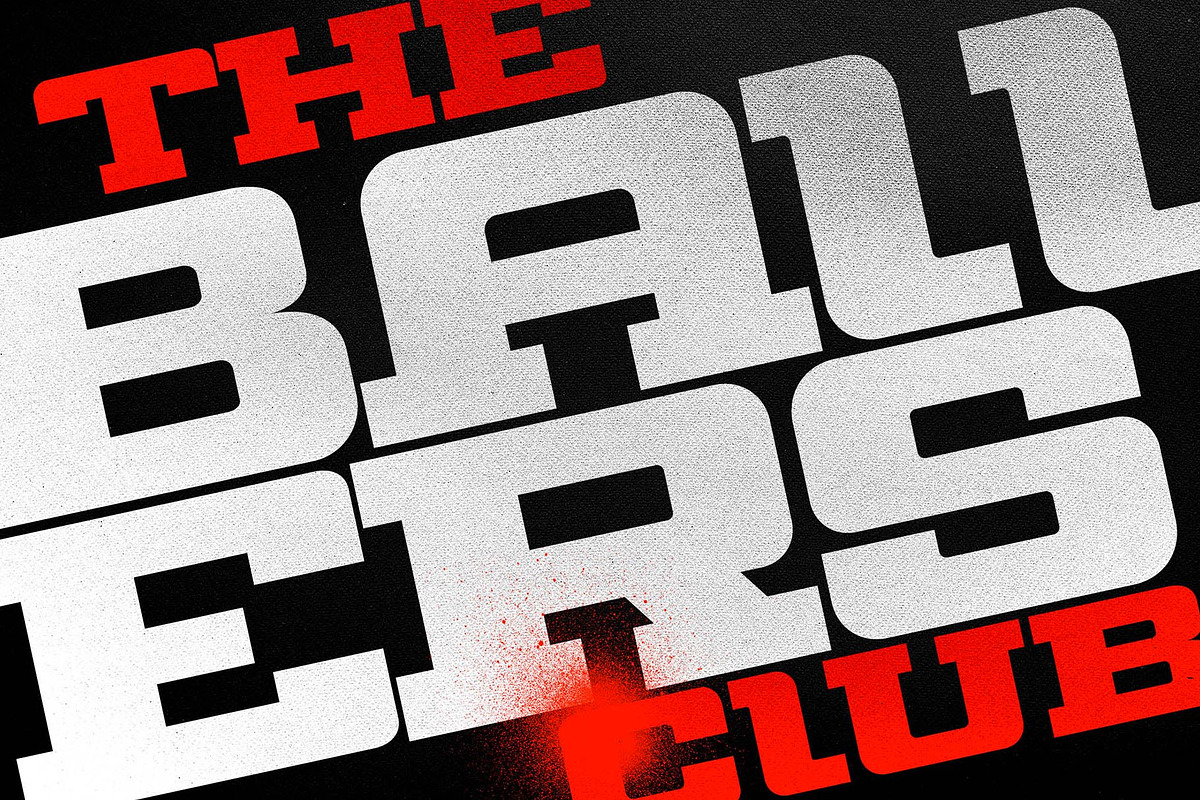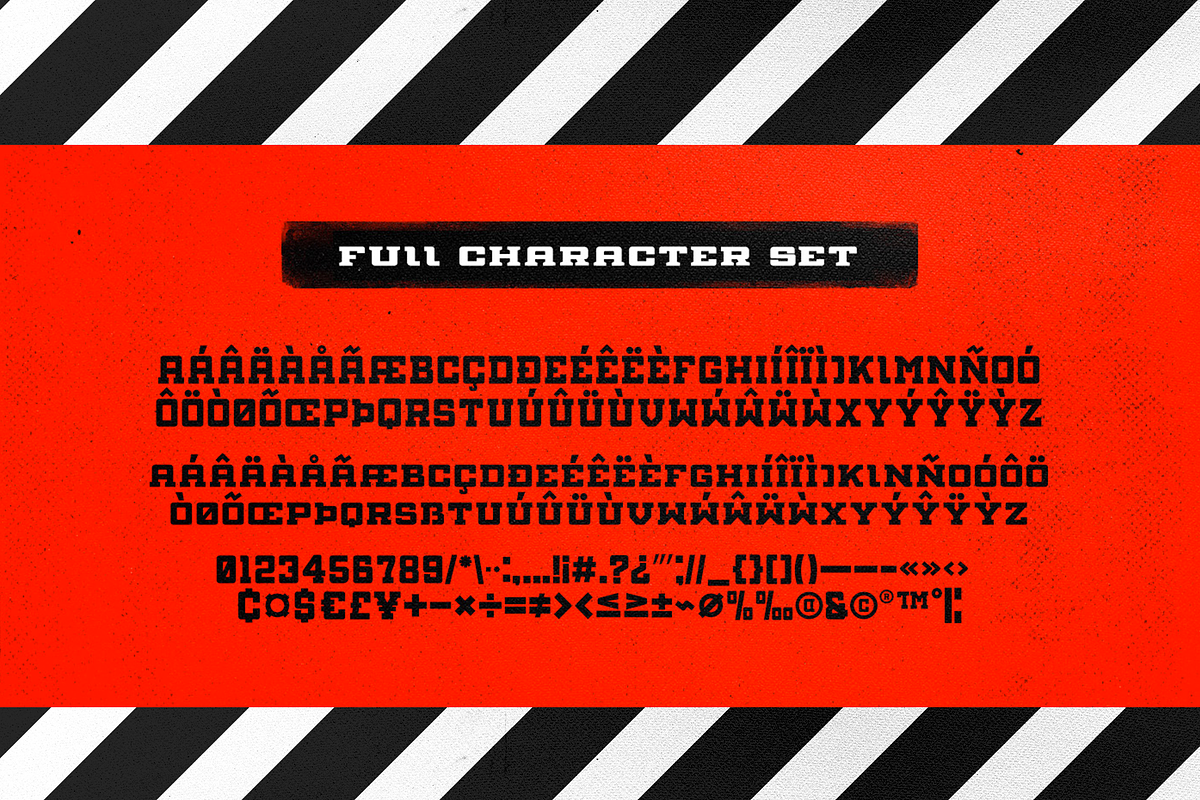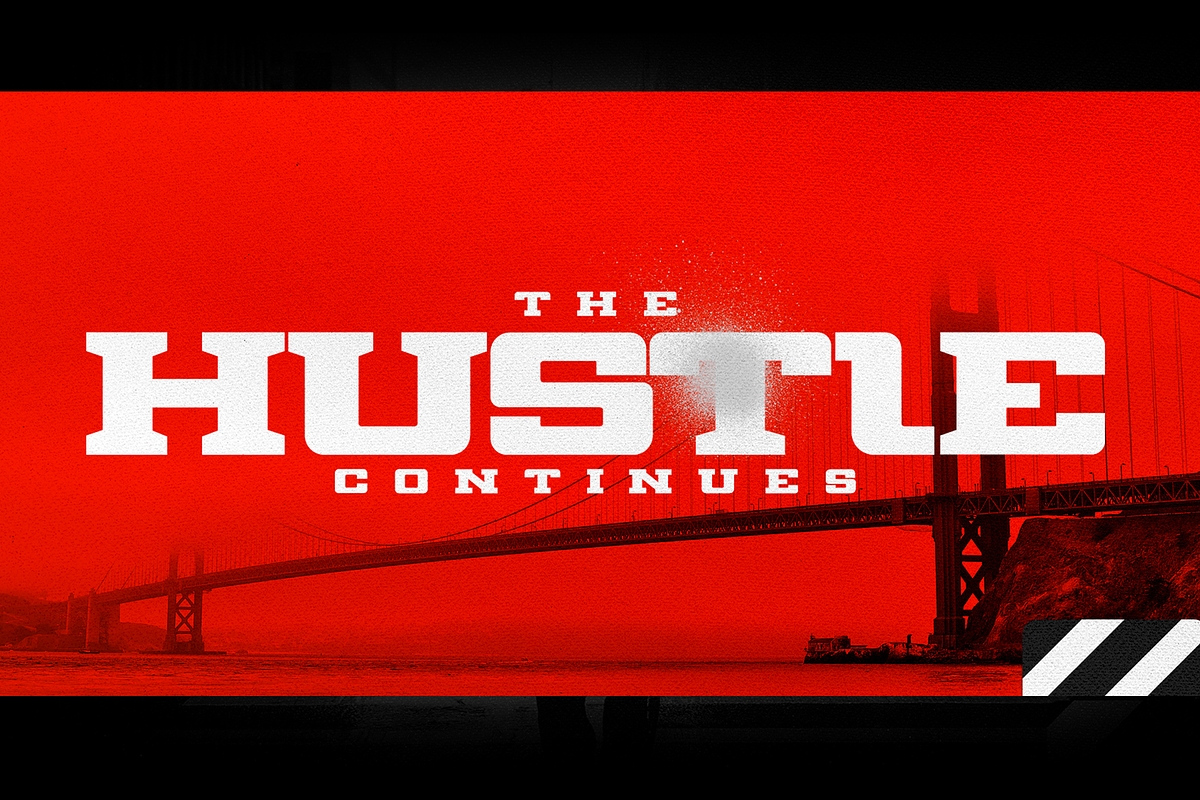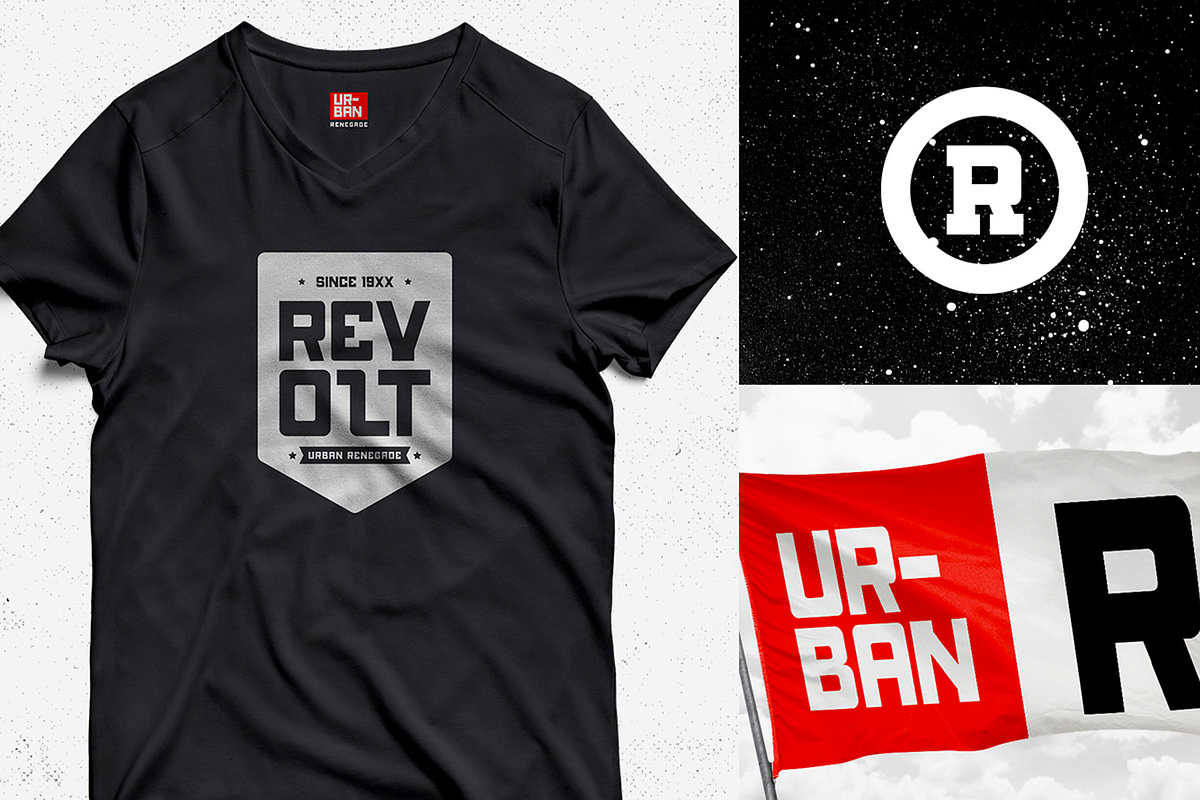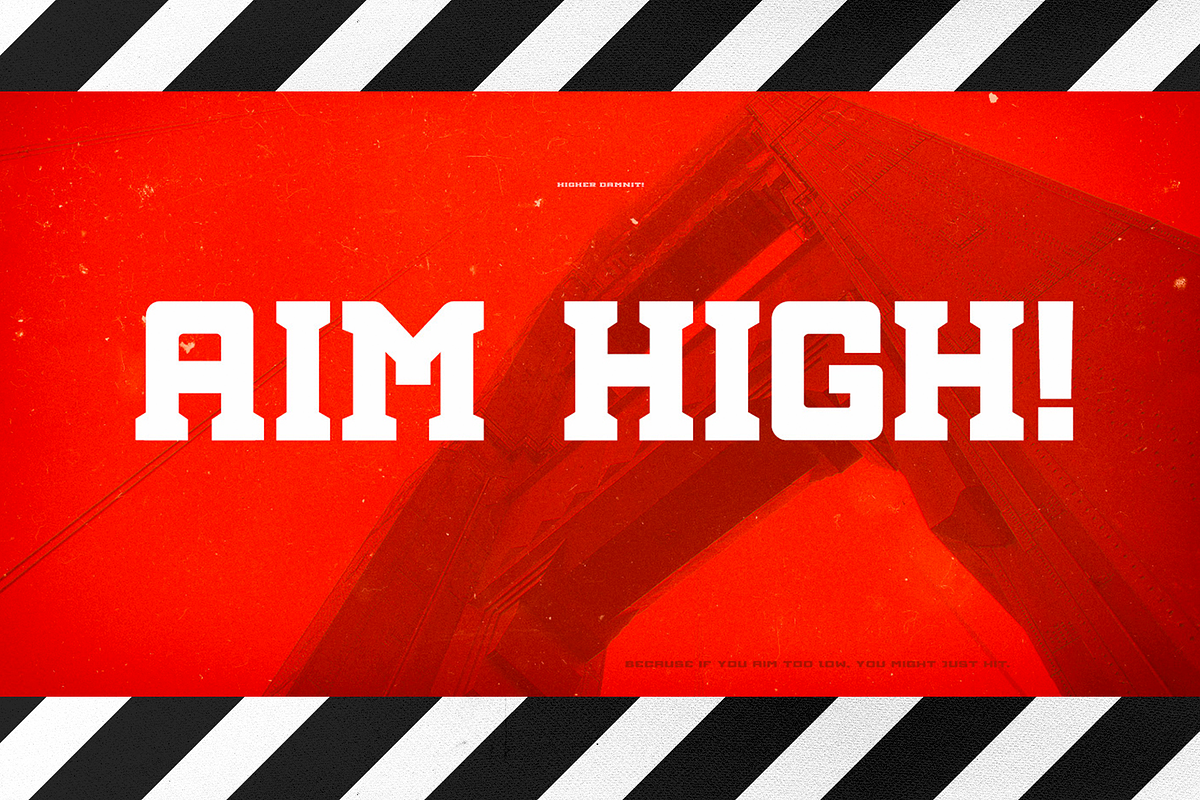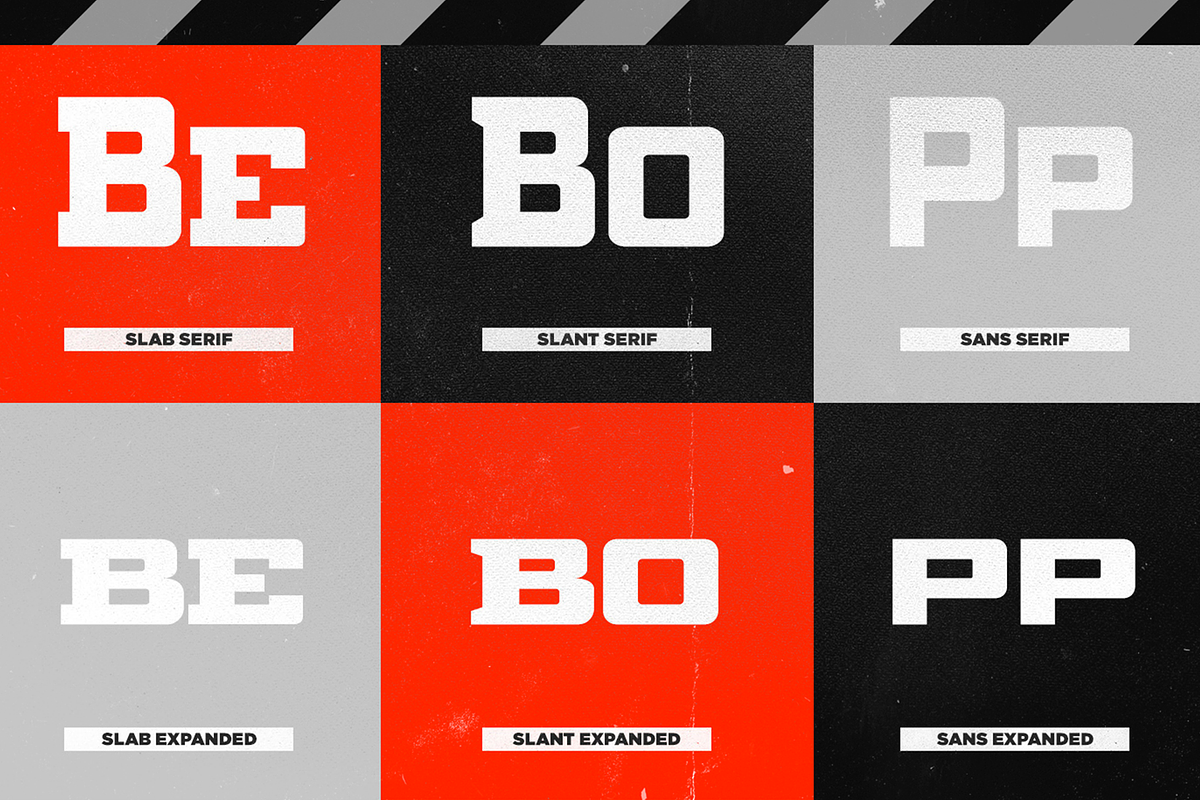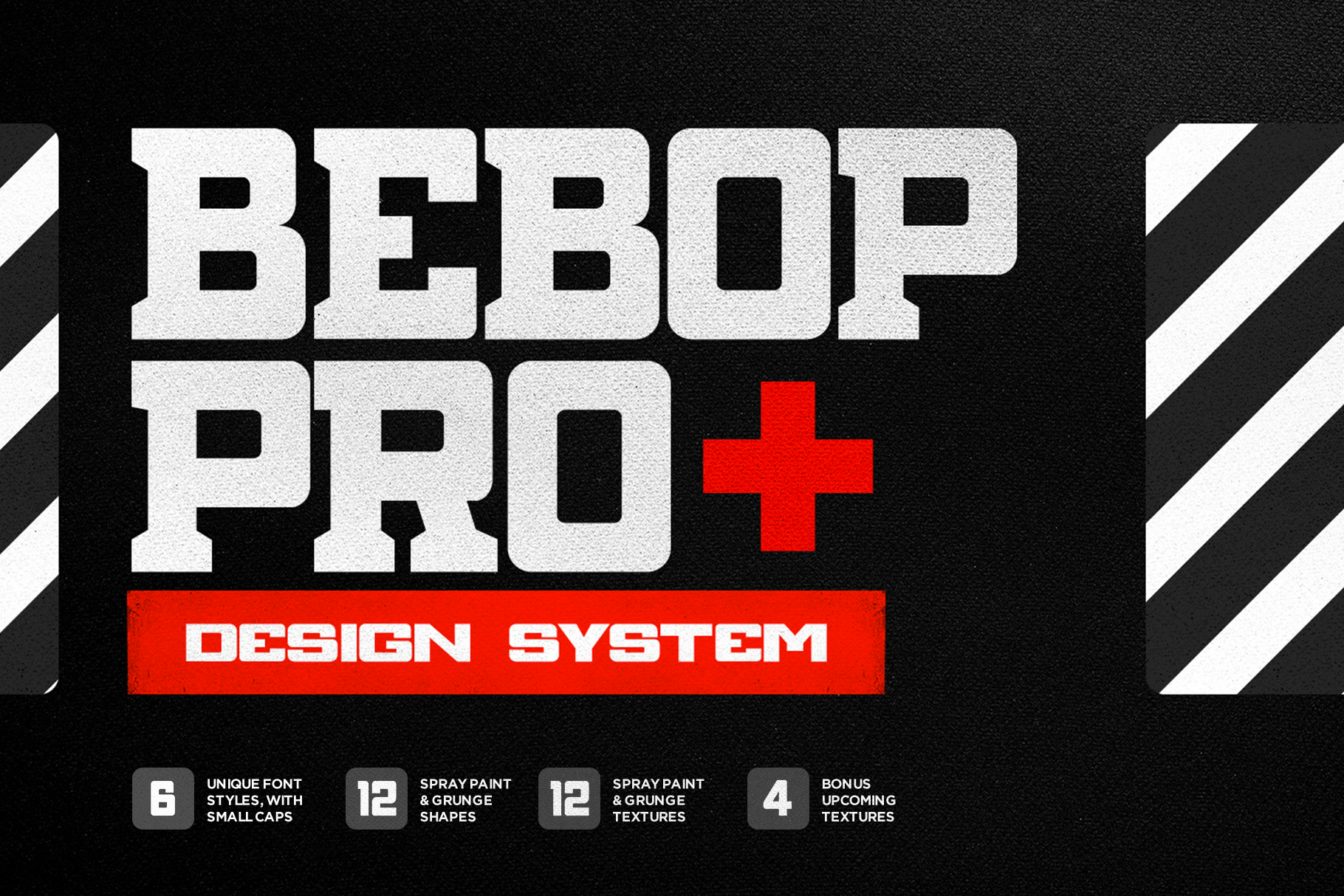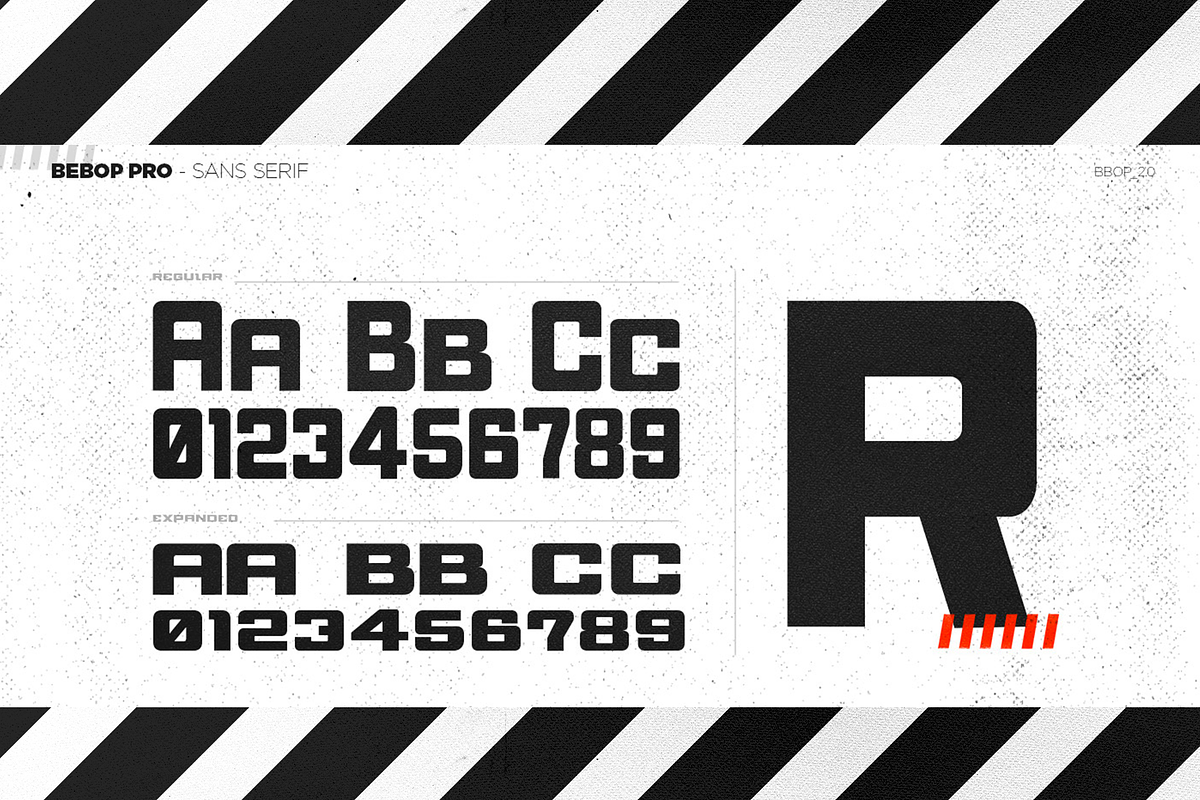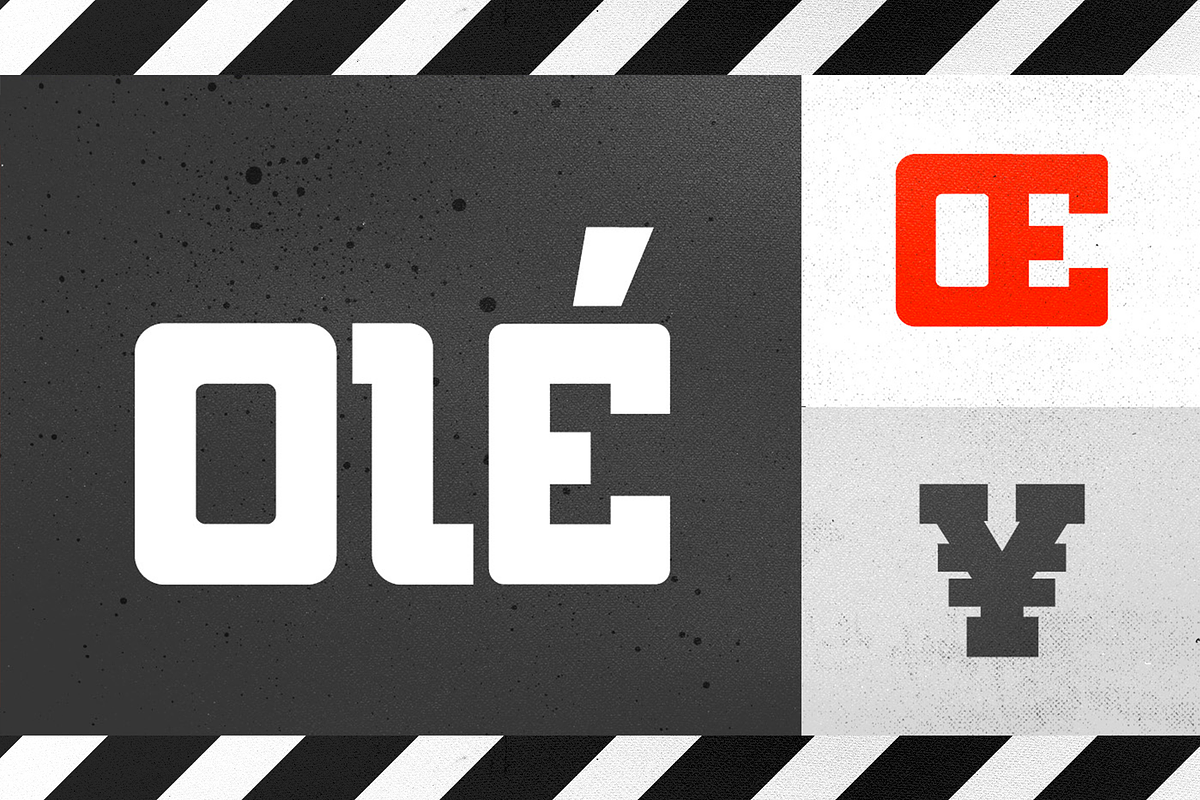
Bebop DS Font & Texture Bundle
The Bebop Pro Design System bundle is a collection of typefaces, textures and graphic shapes for creating high quality designs with a grungy and gritty appeal.
The bundle features our typeface Bebop pro which features 6 font styles of varying weights and the inclusion of small caps for versatile graphic communication design. Bebop Pro comes in slab serif, slant serif and sans serif styles each featuring a wider expanded weight and small capitals to help break design monotony. The typeface alone can be used for creating logo-marks, monograms and impactful display headlines
The textures used in this bundle are created using spray paint and real street textures to add a vintage and distressed look to an otherwise modern and geometric typeface. Bebop Pro Design System bundle will be great to use von rustic vintage and sports inspired designs.